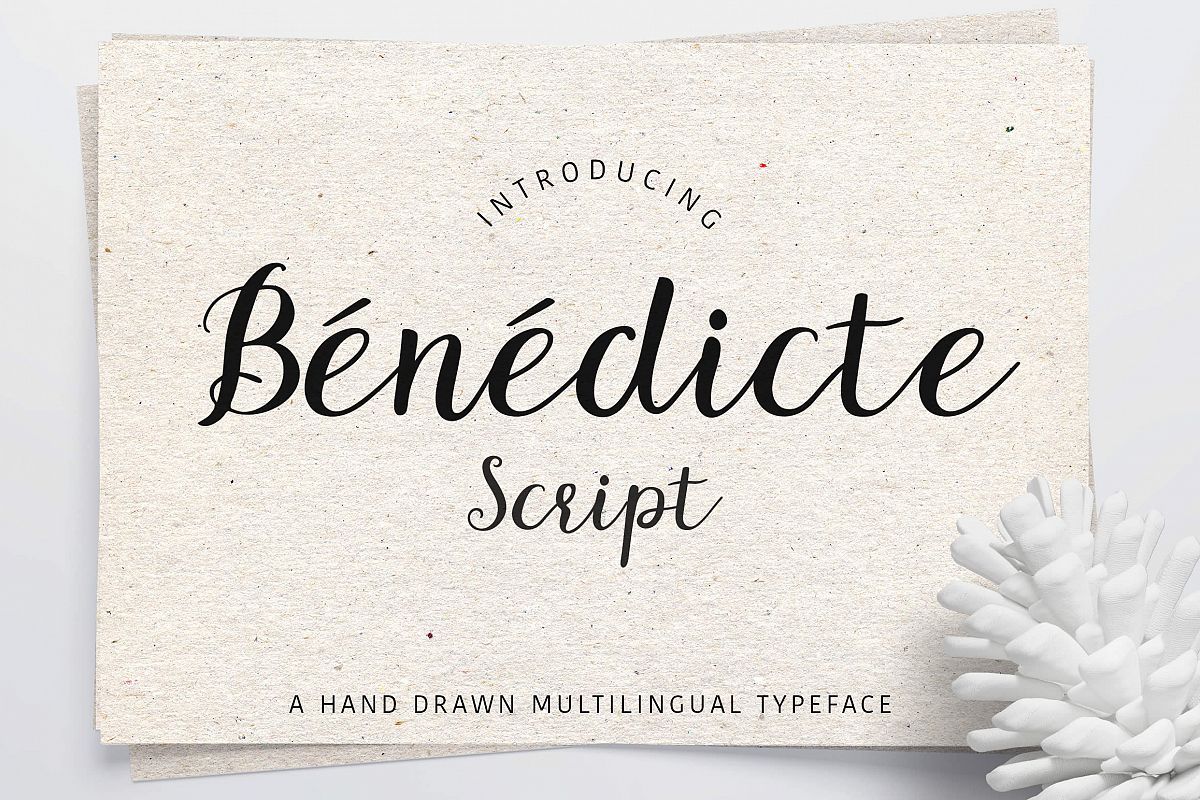
Benedicte Script
Introducing Bénédicte Script, a hand drawn script font with plenty of multilingual characters. Supports English, French, German, Italian, Turkish, Dutch, Danish, Finnish, Swedish, Norwegian, Spanish, Portuguese.
With its clear and simple yet elegant letterforms, it’s great for posters, quotes, invitations, headlines, flyers, merchandise… A clean and readable script that preserves the hand drawn feel.